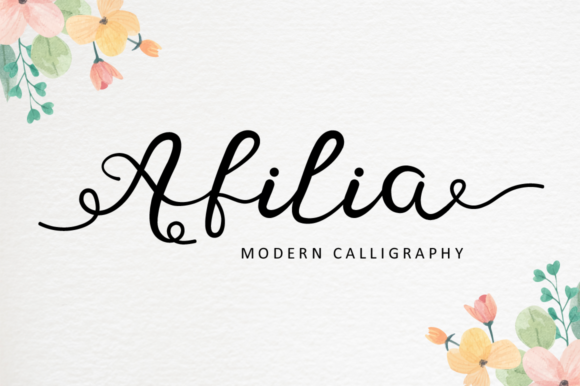
The Ultimate Guide to Afilia Font: Elevate Your Designs with a Friendly and Versatile Script
I’ll never forget the moment I stumbled upon Afilia Font while working on a branding project for a small business. I was on a tight deadline, and my client wanted a font that was both playful and sophisticated. As I scrolled through my font library, Afilia caught my eye with its gorgeous swashes and ligatures. It was love at first sight! In this article, I’ll share my experience with Afilia, its features, and how to make the most of this beautiful font.
An Honest Review of Afilia Font
What I Love About Afilia ✨
• ✅ Incredibly friendly and approachable feel, perfect for designs that require a personal touch
• 💫 Gorgeous swashes and ligatures that add a touch of elegance to any design
• 🎨 Versatile and adaptable, suitable for various design projects, from Instagram posts to calligraphy scripts
• 👍 Easy to read and understand, even in smaller font sizes
While Afilia is an amazing font, there are a few things to keep in mind:
• 🤔 Some users might find the font a bit too casual for formal designs, such as business logos or corporate branding
• ⚠️ The font’s script style might not be suitable for very long blocks of text, such as articles or paragraphs
A Practical Guide to Using Afilia Font
The Story Behind Afilia Font
Afilia Font was designed with the intention of creating a friendly and approachable script font that would add a personal touch to any design. The designer aimed to create a font that would be versatile and adaptable, suitable for various design projects, from social media posts to calligraphy scripts.
Q: What is Afilia Font best suited for?
A: Afilia Font is perfect for designs that require a friendly and approachable feel, such as social media posts, calligraphy scripts, and DIY projects.
Q: Is Afilia Font suitable for body text?
A: While Afilia Font is easy to read, it’s not recommended for long blocks of body text. It’s best suited for headings, titles, and short paragraphs.
Q: Can I use Afilia Font with other fonts?
A: Yes, Afilia Font can be paired with other fonts to create a unique and interesting design. Experiment with different font combinations to find the perfect match.